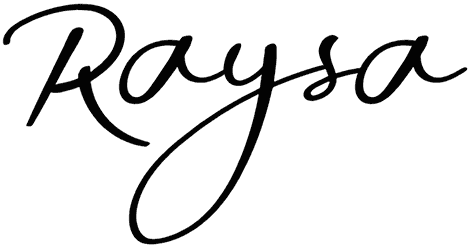
Raysa Font
Wanna try something unique for your words? Take a look at today’s font! All the characters in Raysa font are designed with a thin handwritten style and a cursive effect that gives a soft and approachable sense to your presentation.
You can use this feminine font for decorative purposes and get creative with your looks. This calligraphy style is popular in summer flyers, and in this version, you can go crazy with all the pastel colors to make it more eye-catching.